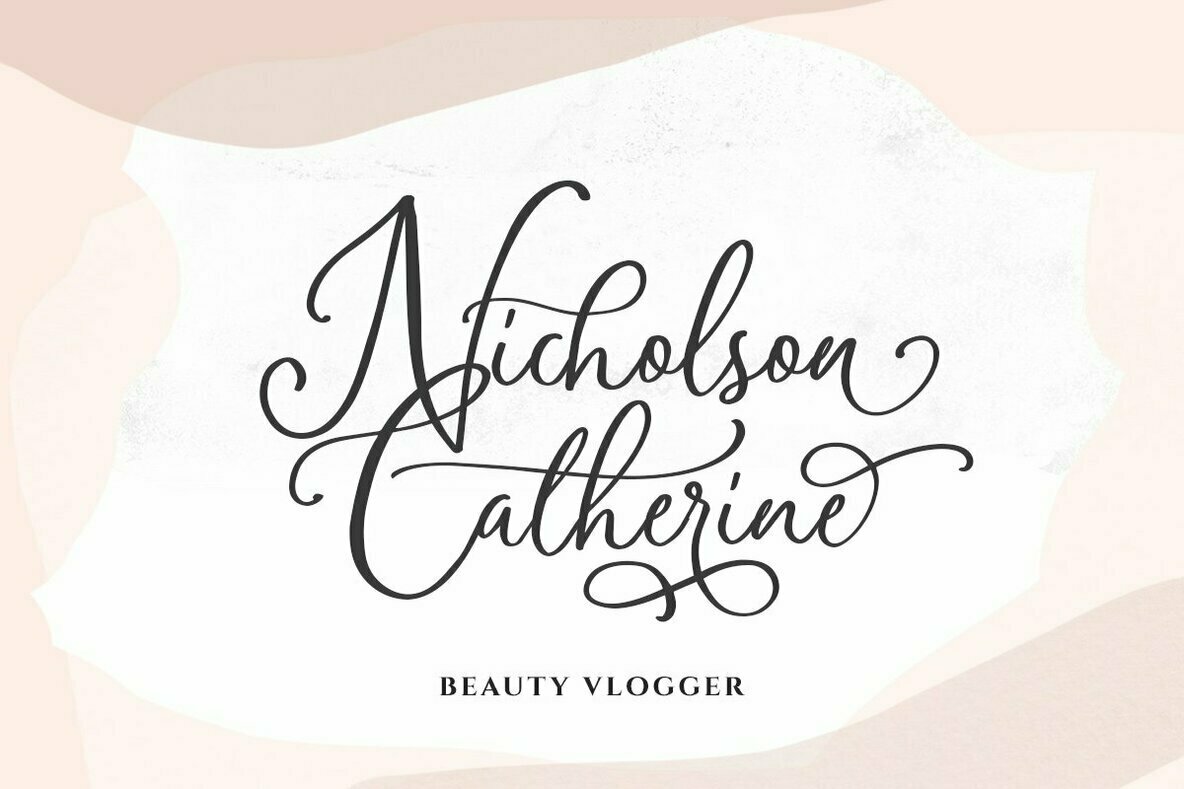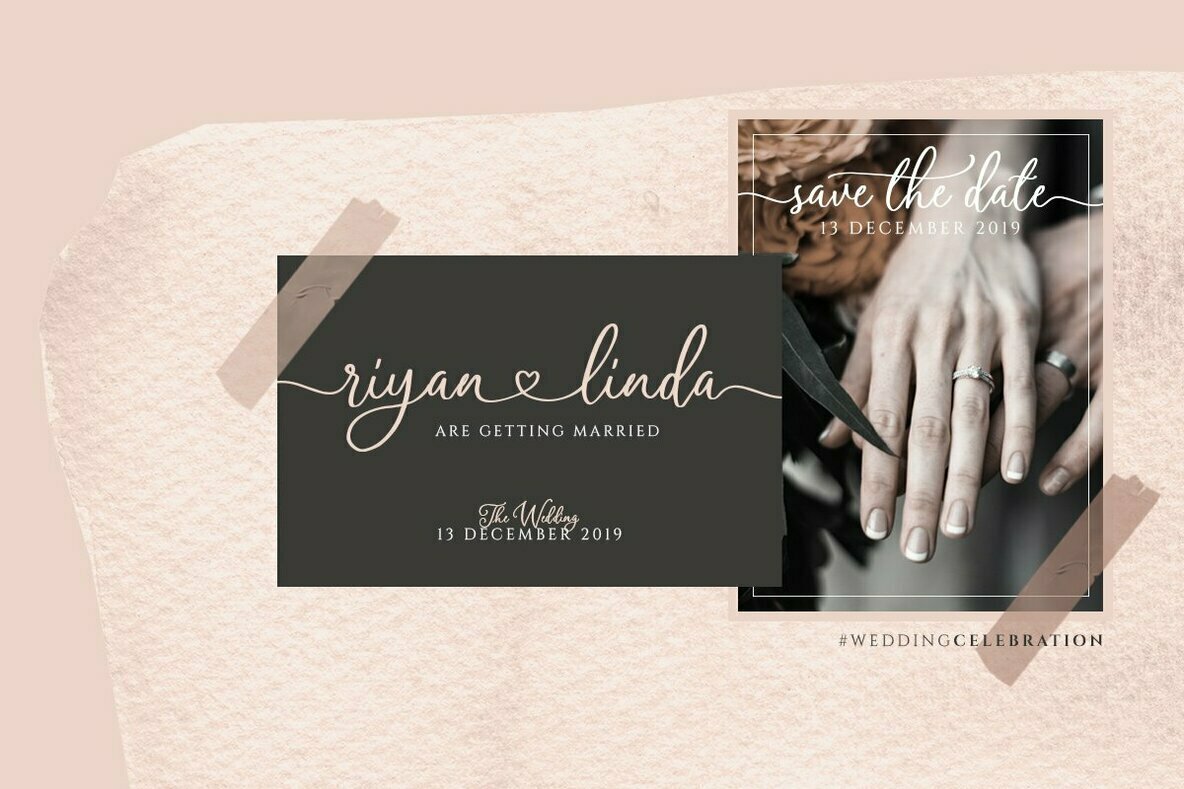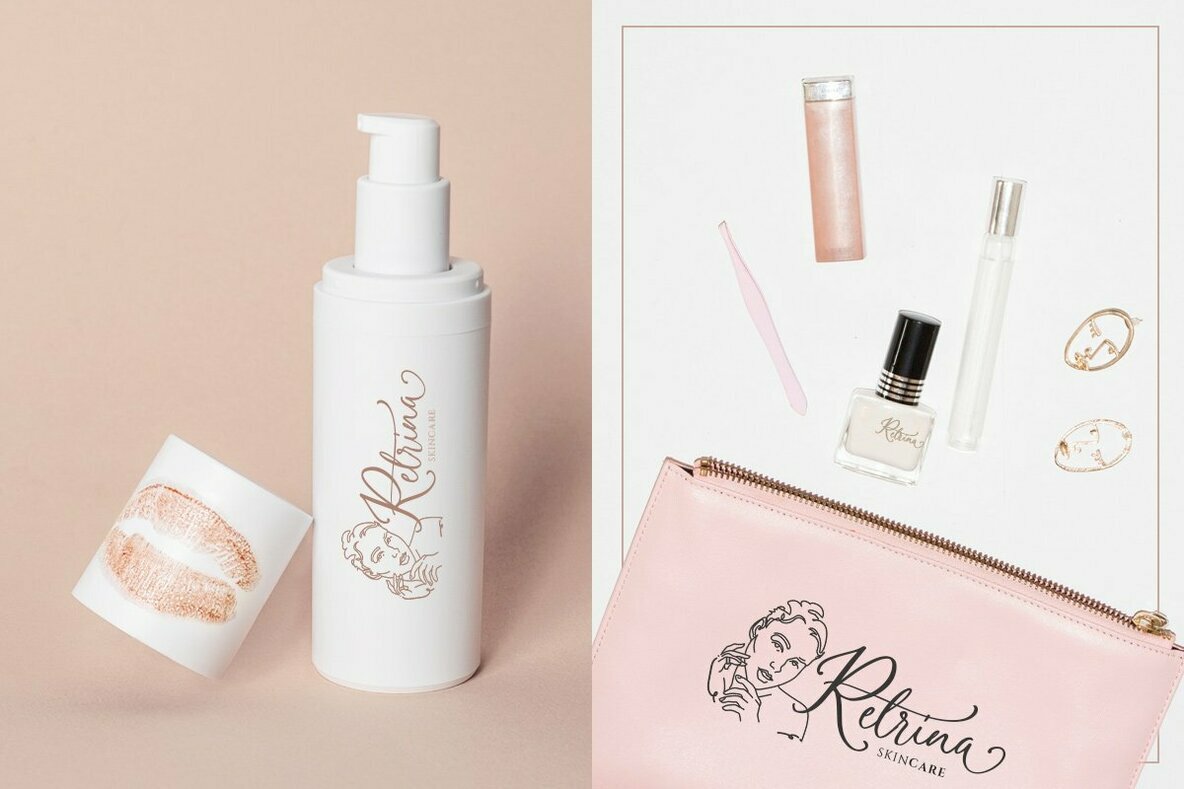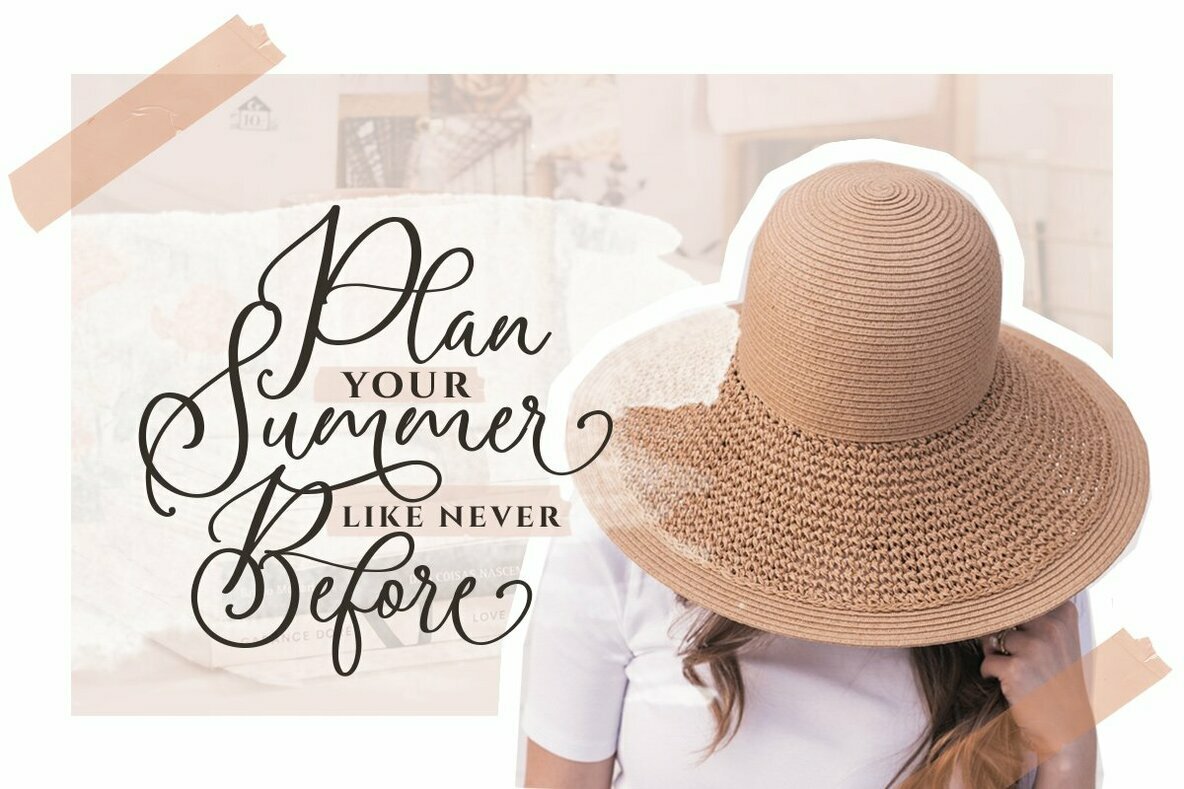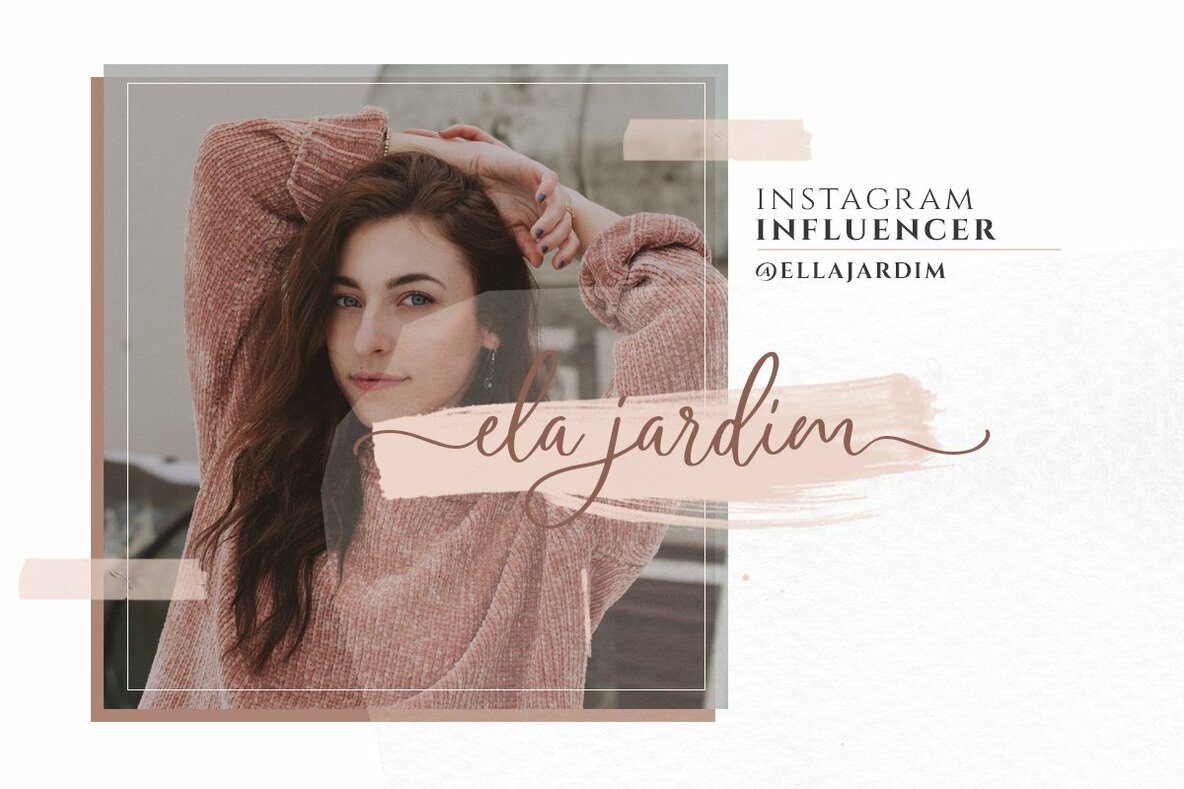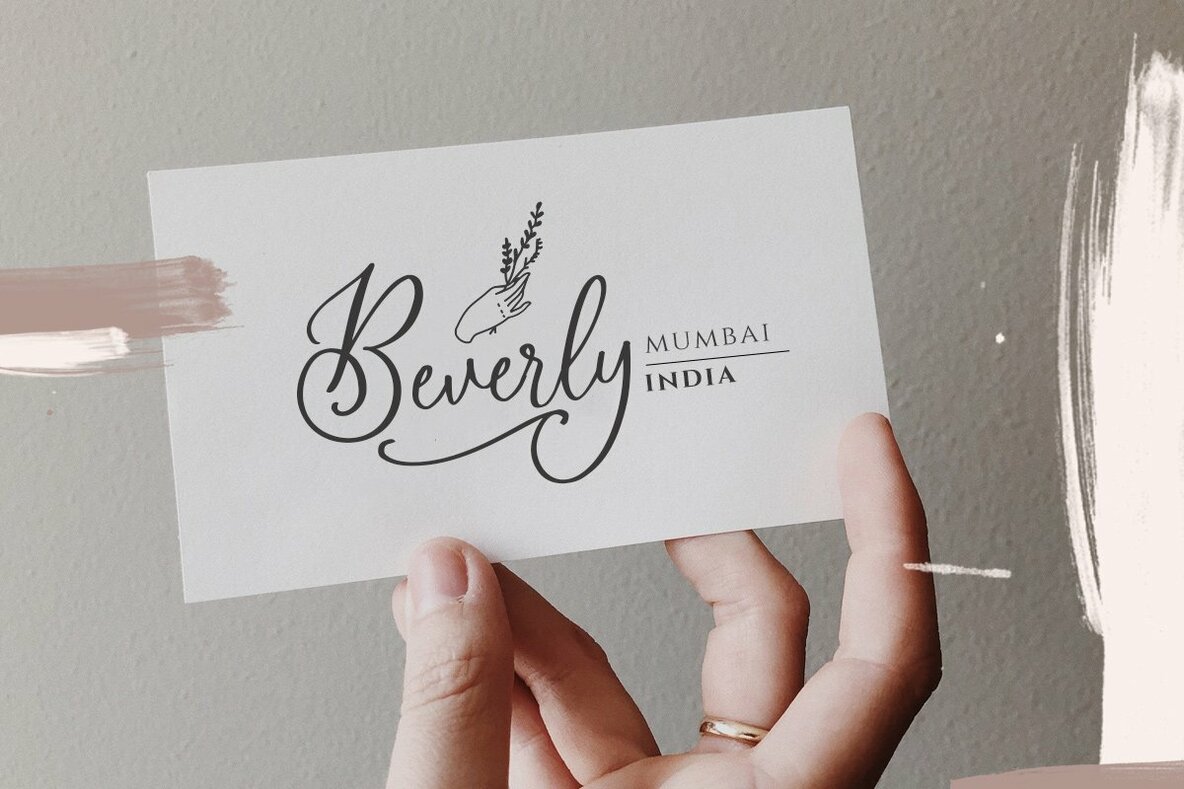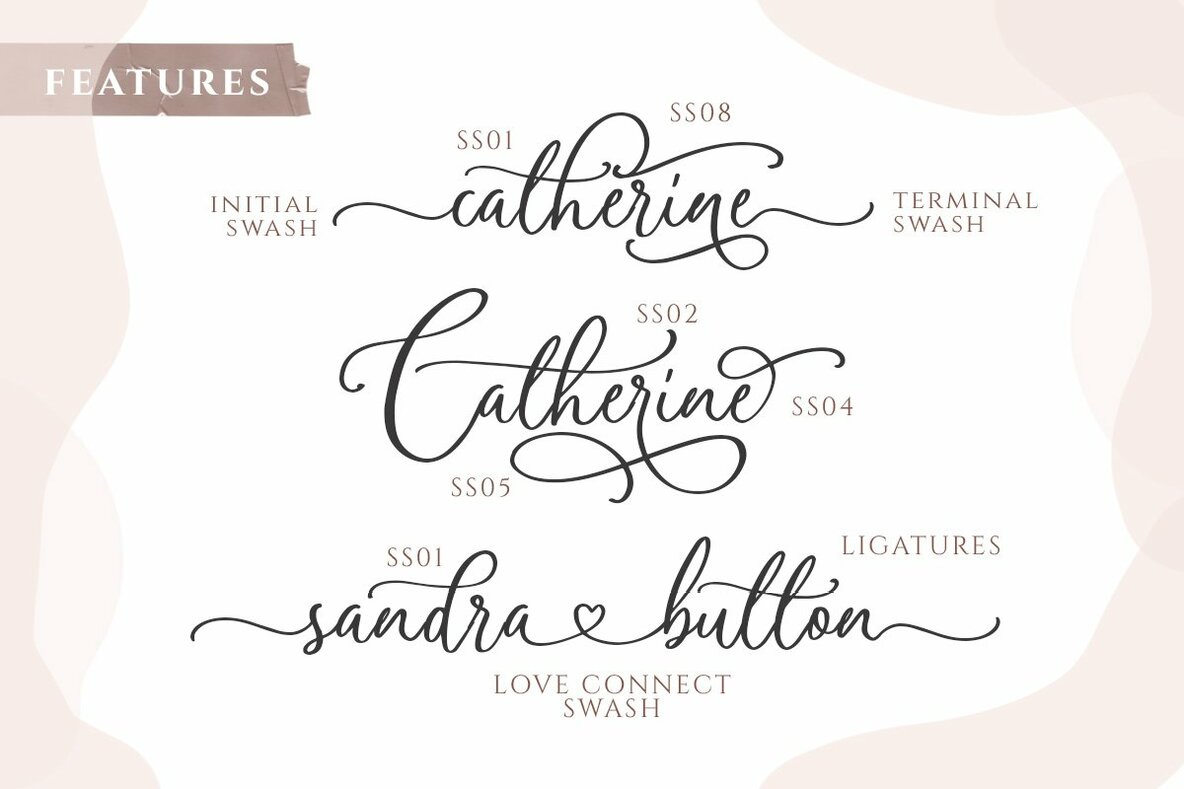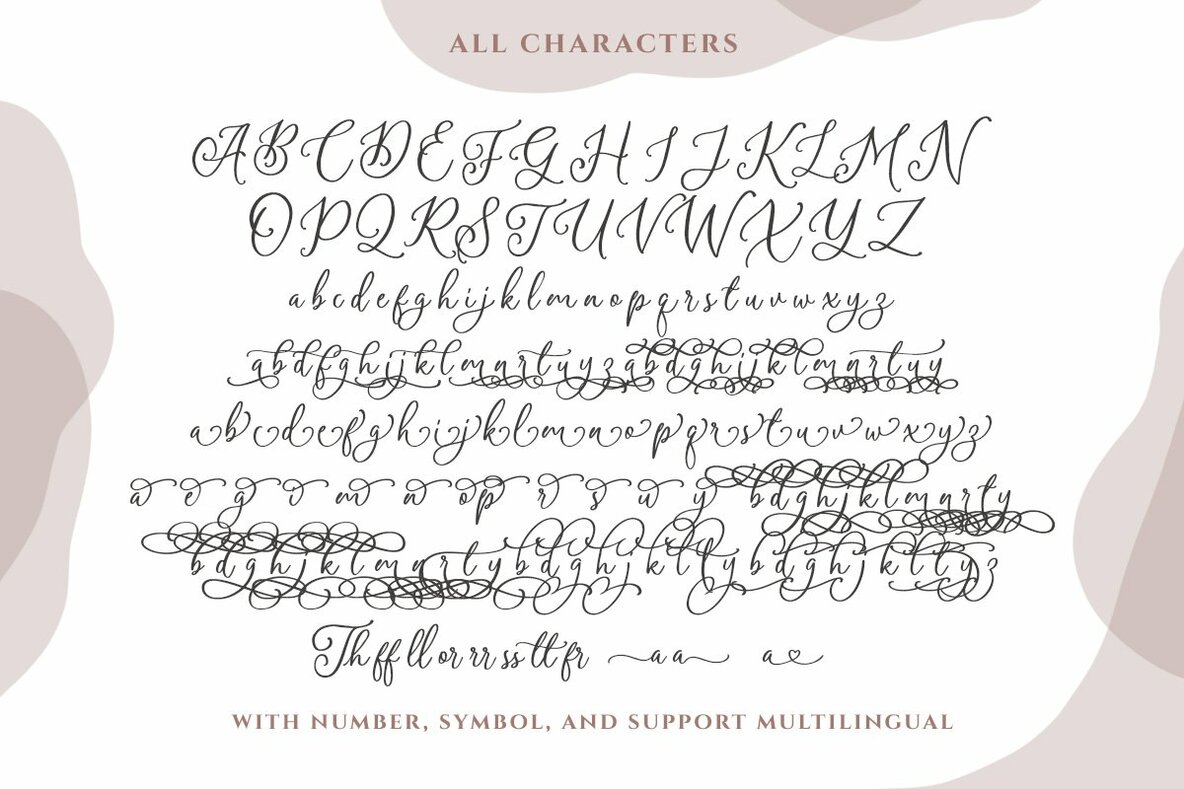
Amerta Misty Font
Amerta Misty
Amerta Misty offers a modern calligraphy style infused with an abundance of swashes. This typeface is ideal for graphic designers looking to create engaging headlines, distinctive logos, and appealing apparel designs. It seamlessly adapts to invitations, brand identities, packaging, and advertising materials, fulfilling various creative needs.Amerta Misty: Modern Calligraphy with Swash Appeal